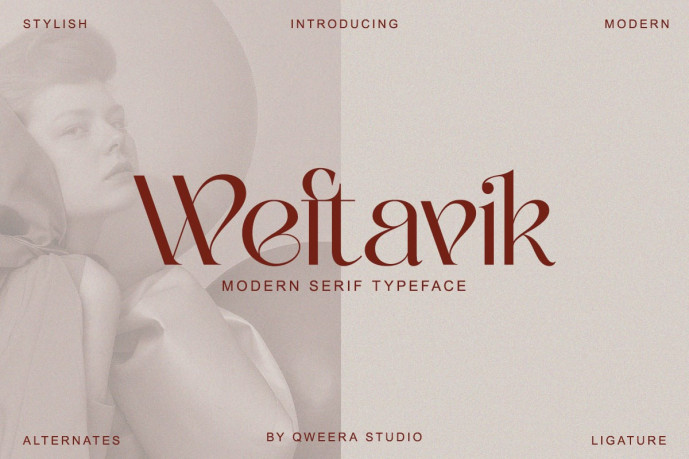
Weftavik – Modern Serif Font
Designer: IdhhamCholid
Weftavik – Modern Stylish Serif Font, a refined serif typeface designed with clean elegance and contemporary flair. Featuring stylish ligatures and alternates, Weftavik captures the essence of modern minimalism blended with high-fashion aesthetics.
Perfectly crafted for luxury branding, editorial layouts, fashion logos, packaging design, wedding stationery, and digital projects, this typeface delivers a premium look that enhances both bold headlines and elegant text compositions.
Elevate your next project with Weftavik – the minimal modern serif font built for stylish branding.
✨ Font Features
• Uppercase & lowercase
• Regular & Italic
• Alternates & ligatures
• Numbers & punctuation
• Multilingual support
� Perfect For
• Minimal branding
• Fashion design
• Editorial magazines
• Luxury packaging
• Wedding stationery
• Social media templates